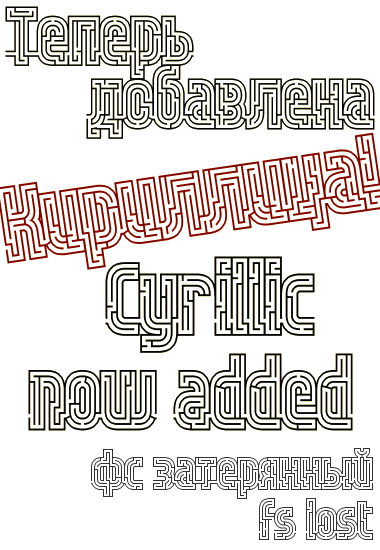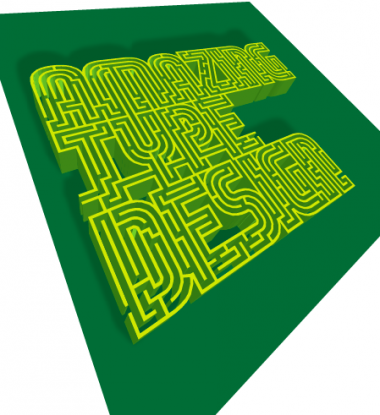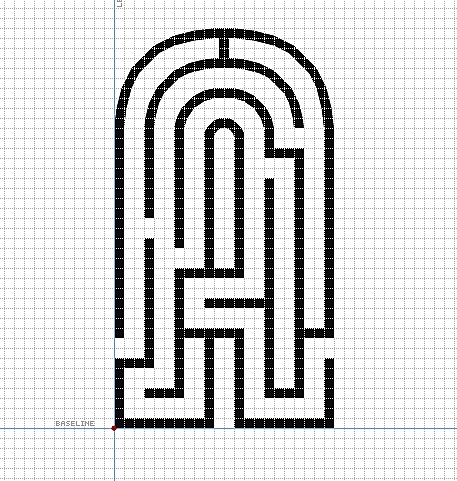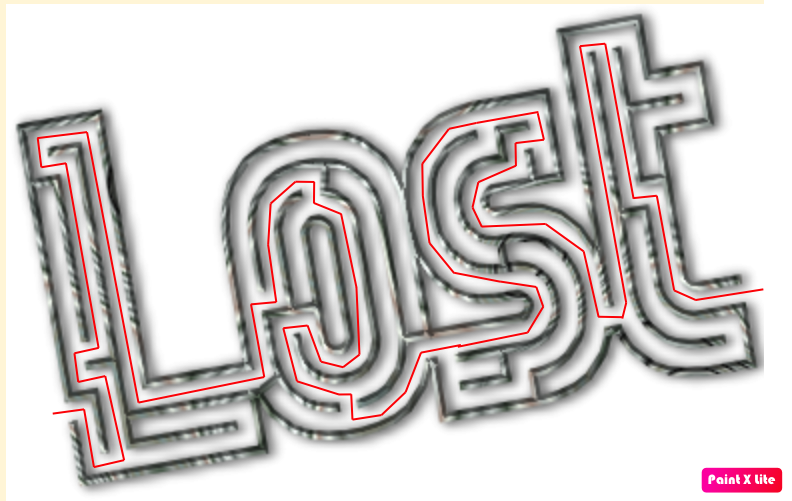
• My final entry in the competition. Inspired by Mazey, zlabyrinths eYe/FS, and wavelength. Each glyph has its own maze, and each maze connects with the next. Tilde ~ and low line _ connect words, grave ` closes beginnings and ends, and the left and right arrows < > are for the start and end. There are also some alternates in Extended Latin A. Suggestions and critiques are welcome. Thanks!
04/06/14 The whole font has been updated to be one brick taller, and thus properly fit onto a grid. Also, some characters have been redesigned. V2.0
05/13/14 All punctuation has been modified to continue a word maze. V2.1
08/22/14 I've made the accents part of the maze. I've also changed a few characters, and added Œ and œ. V2.3
08/04/15 Added Polish support with Ą, Ć, Ę, Ł, Ń, Ś, Ź, and Ż. Tweaked a few characters as well, and added a crossbar to the ð. V2.4
06/18/16 Added support for multiple languages with more Cyrillic chars and punctuation. Also tweaked a few chars.